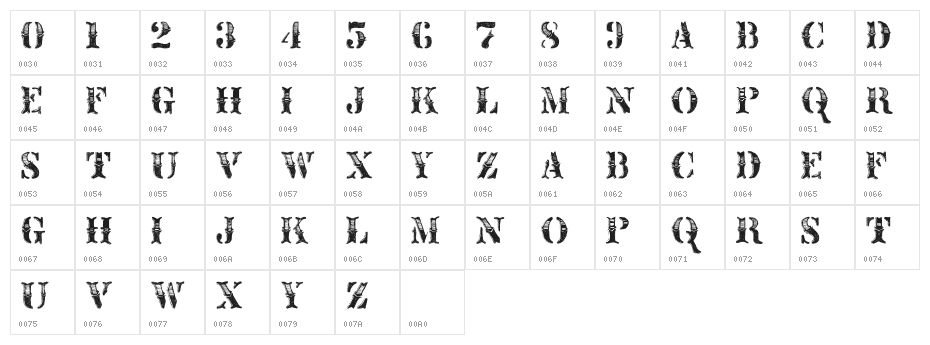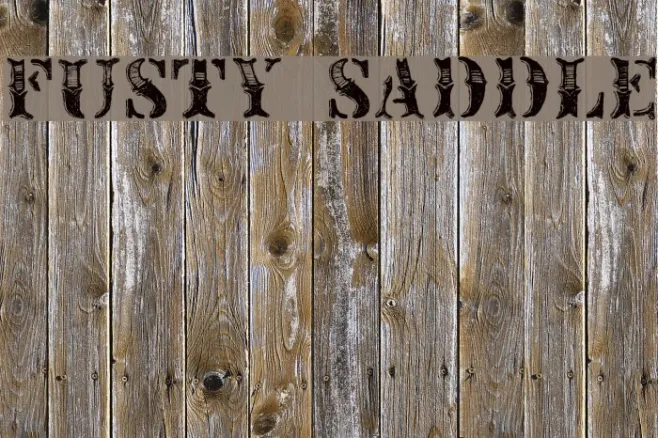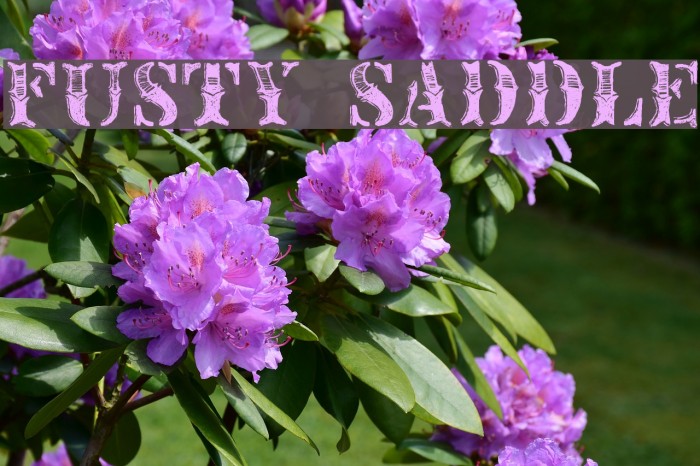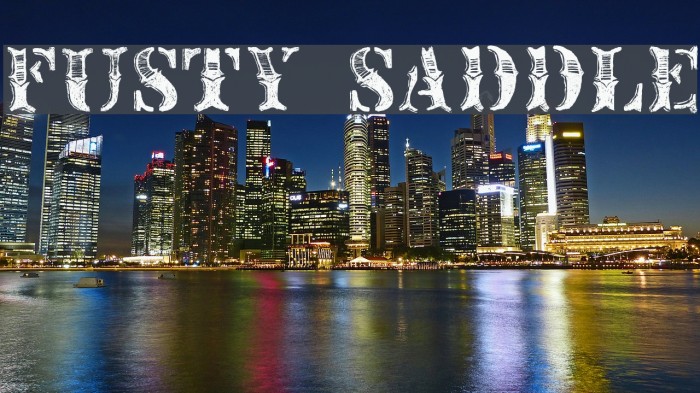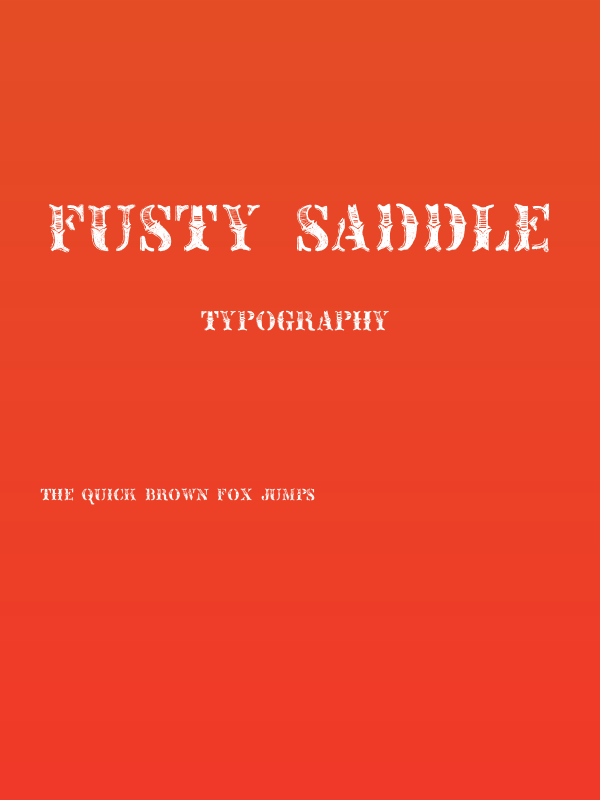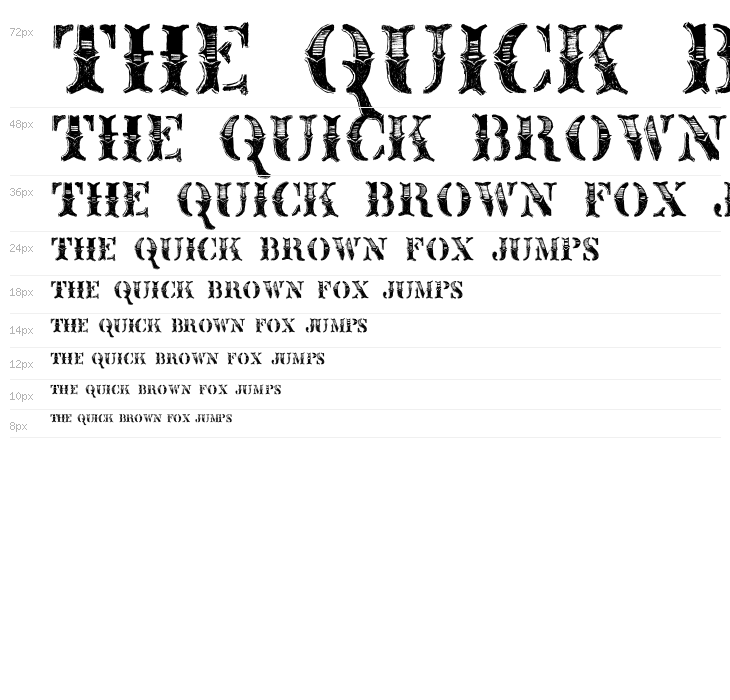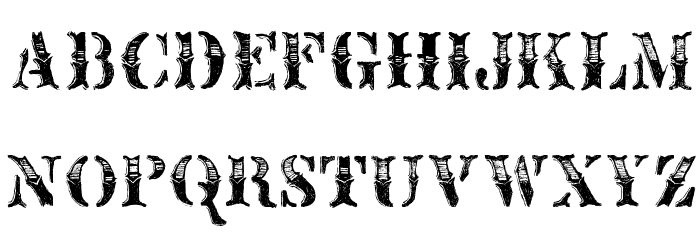
Fusty Saddle Font
Fusty Saddle Description
This font features a rugged, textured appearance reminiscent of vintage Western aesthetics. Each character is adorned with intricate, distressed detailing that gives it a hand-carved look. The bold, serifed letters are designed with a high contrast between thick and thin strokes, adding to the dramatic and eye-catching style. The font's unique character is further enhanced by its uneven edges and shadow-like effects, making it ideal for projects that require a rustic or antique feel. Its decorative nature makes it suitable for headlines, posters, and branding that aim to convey a sense of history or nostalgia.
| Proposed Projects | Ideal for Western-themed posters, vintage branding, rustic signage, and decorative headlines. |